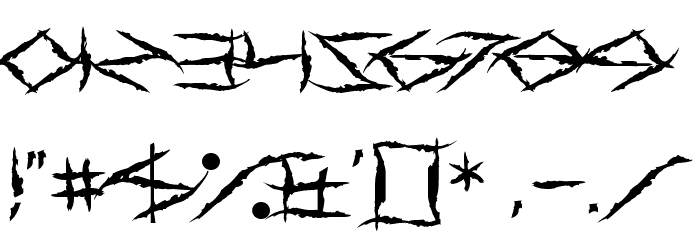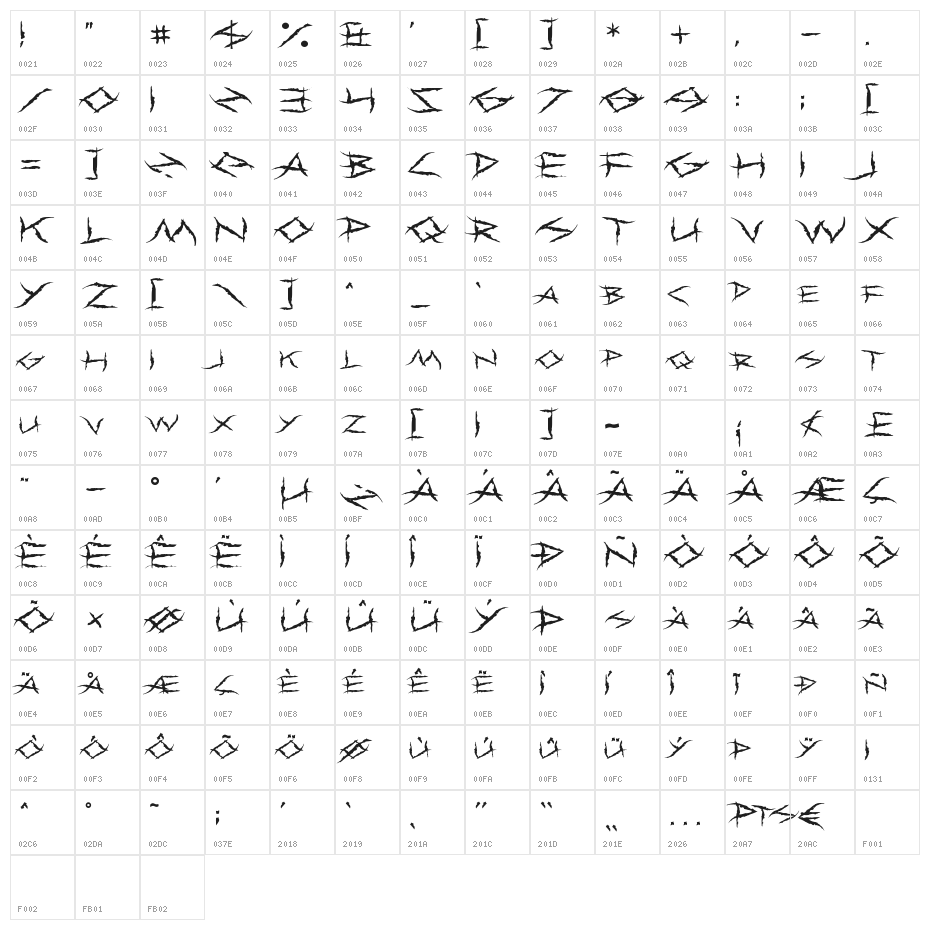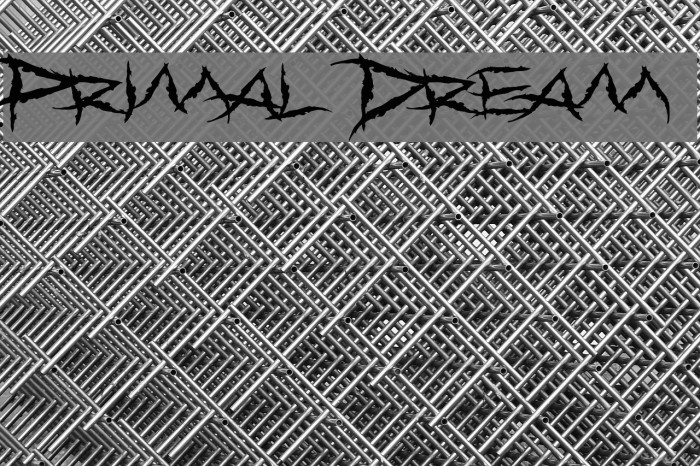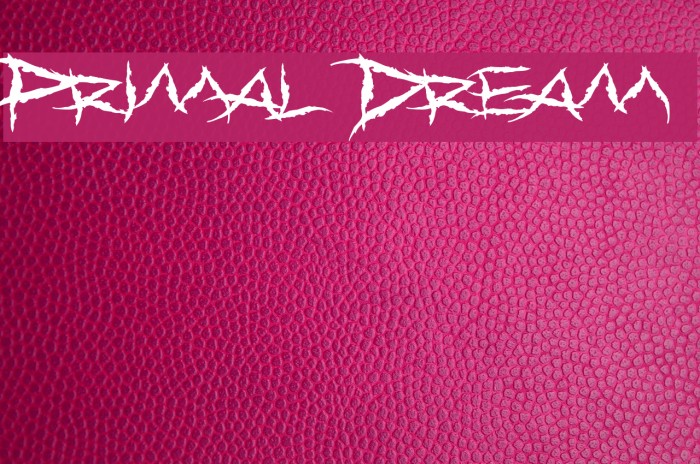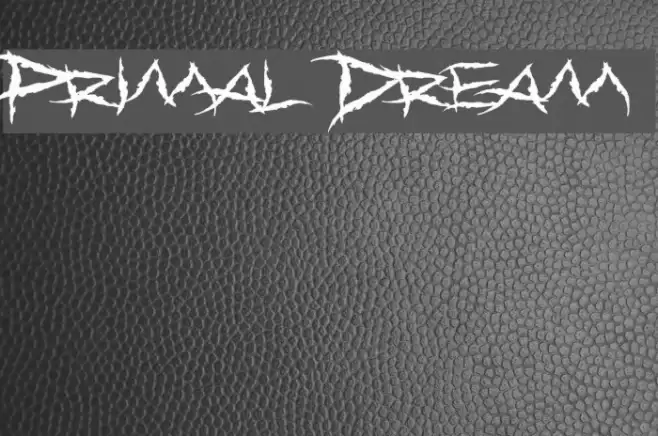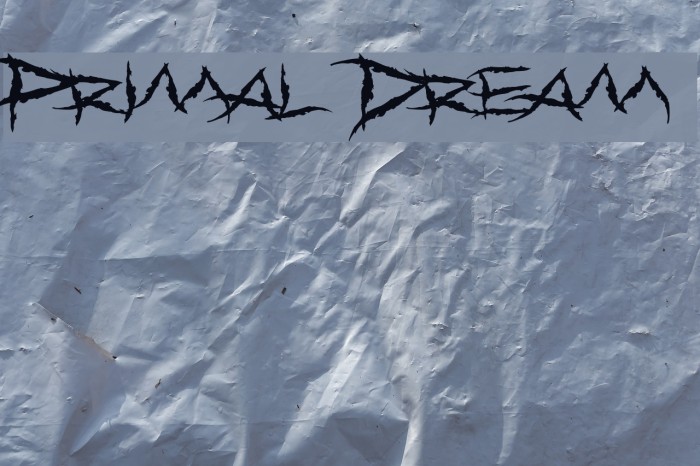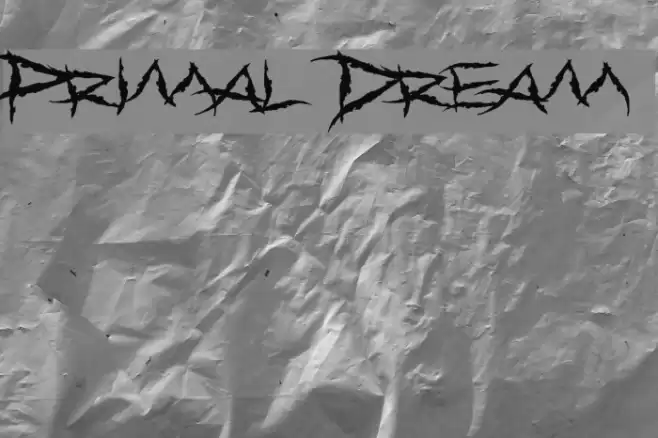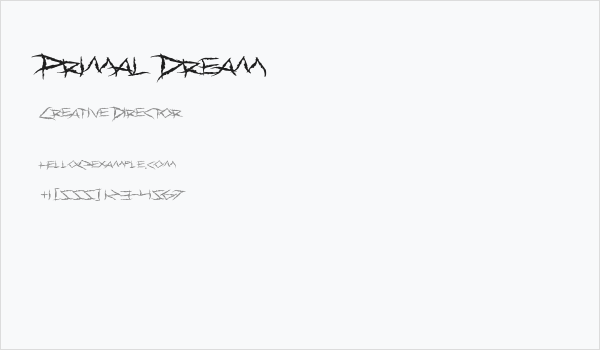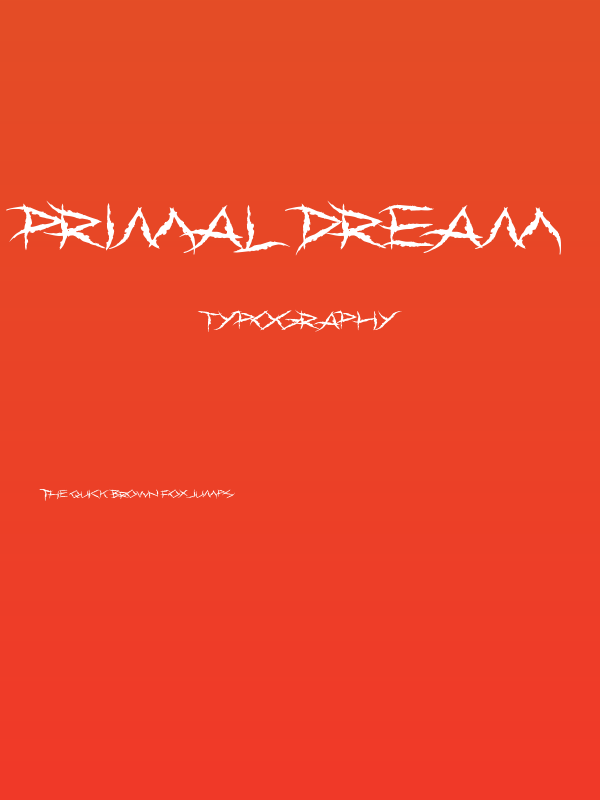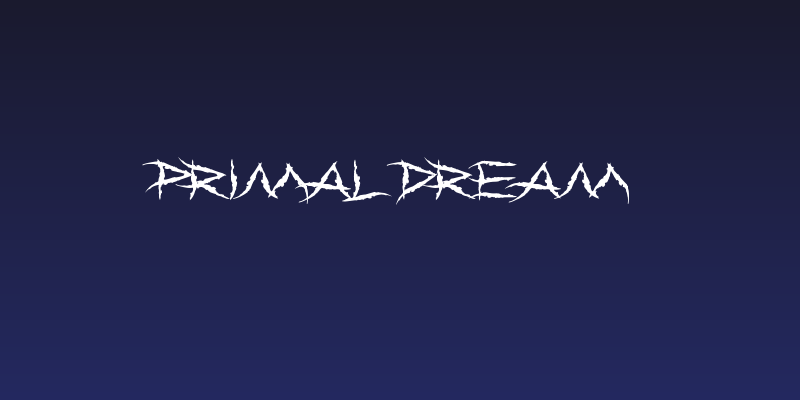
Primal Dream Font
Primal Dream Description
This font features a highly decorative and edgy design, reminiscent of thorny vines or barbed wire. Each character is crafted with sharp, jagged edges and irregular strokes, creating a sense of chaos and intensity. The uppercase and lowercase letters maintain a consistent style, with elongated and pointed terminals that give the font a wild and untamed appearance. The numbers and special characters follow the same aesthetic, ensuring uniformity across the entire character set. This font is ideal for projects that require a bold and rebellious statement, capturing attention with its unique and striking visual impact.
| Proposed Projects | Album covers, horror movie posters, extreme sports branding, edgy apparel designs. |